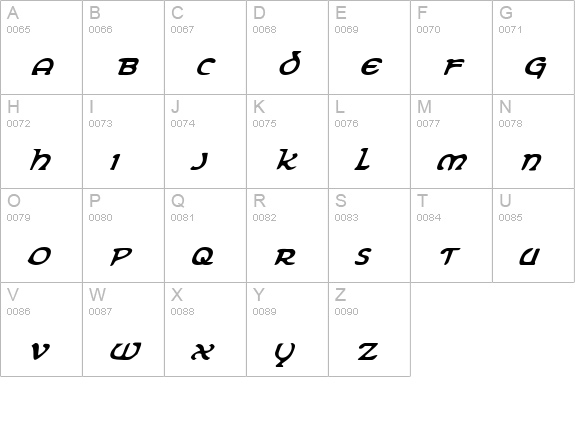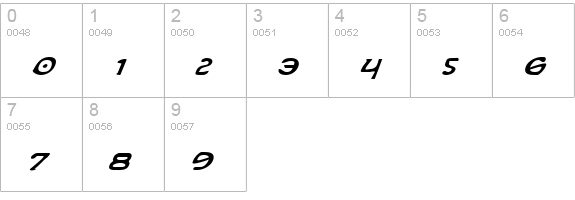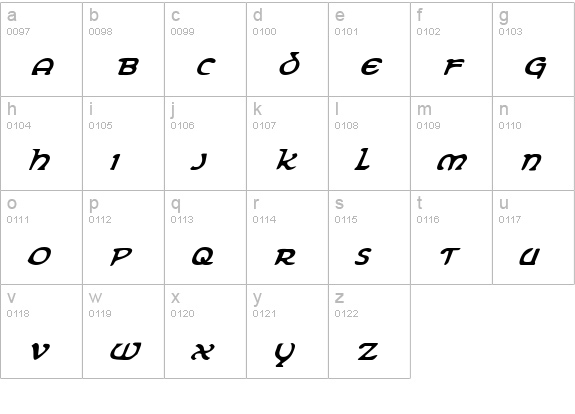
Erin Go Bragh Italic is a distinctive, italic variant in the Erin typeface family \xE2\x80\x94 well suited to design and typography projects.
Erin Go Bragh Italic font is a stunning and elegant typeface that exudes sophistication and charm. With its graceful curves and stylish slant, this font adds a touch of class to any design project. Whether you're creating invitations, posters, or branding materials, Erin Go Bragh Italic font is sure to make a statement. The italicized style of this font adds a sense of movement and fluidity, making it perfect for conveying a sense of energy and dynamism in your designs. Its sleek lines and delicate strokes give it a timeless and classic appeal, making it a versatile choice for a wide range of applications. Best of all, Erin Go Bragh Italic font is available for free download at FontsMarket.com. So you can add this beautiful font to your collection without breaking the bank. Don't miss out on the opportunity to elevate your designs with the exquisite Erin Go Bragh Italic font.